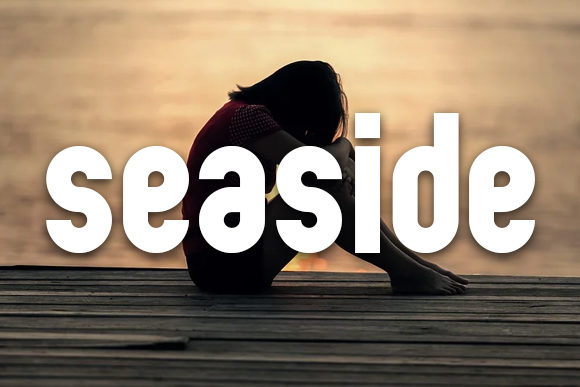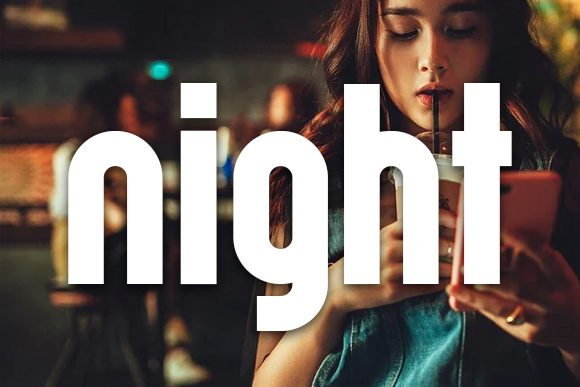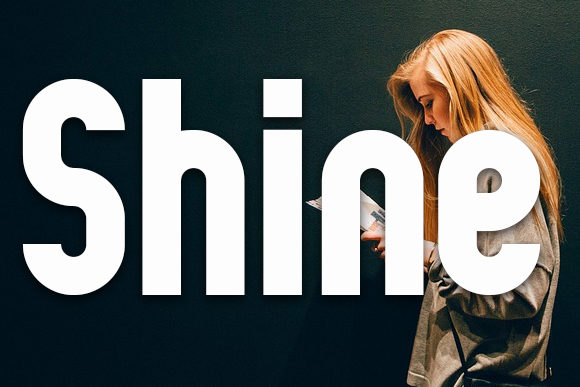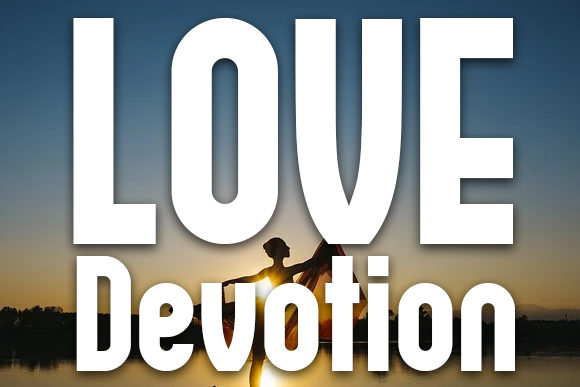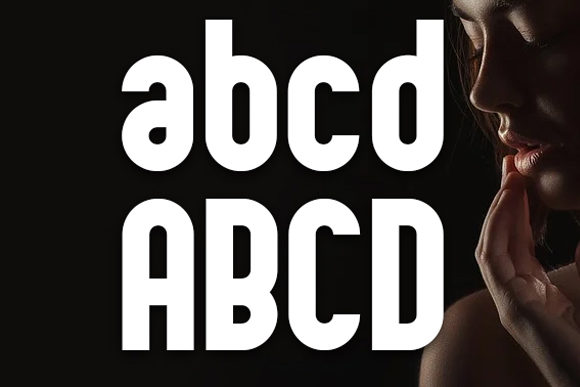
Introduction to Hofmann Font
Hofmann is a great display font.
Use this gorgeous and unique font to bring any DIY project to life .
Key Features of Hofmann Font
Why Choose Hofmann Font?
Hofmann Font offers exceptional quality and versatility, making it a valuable addition to your design toolkit. Whether you’re creating for personal projects or commercial use, Hofmann Font delivers professional results.